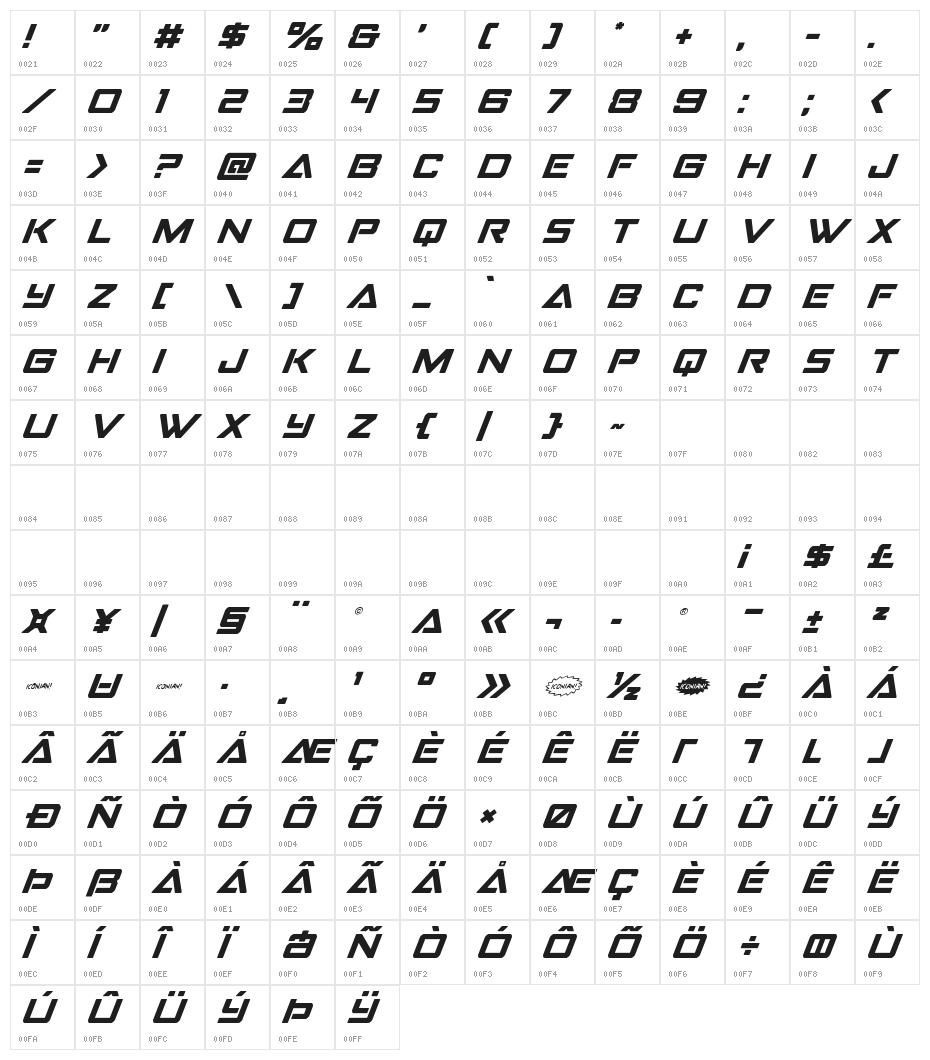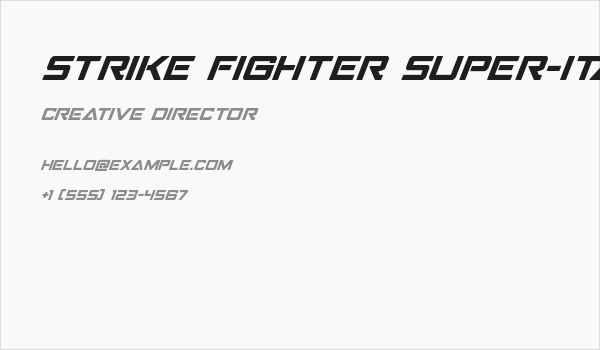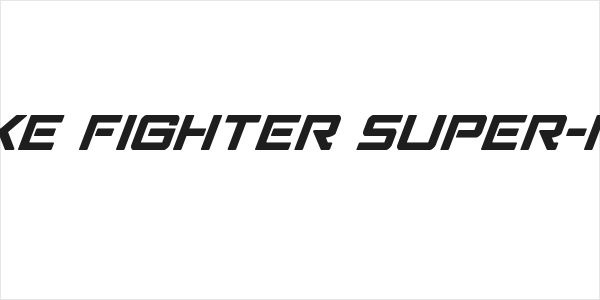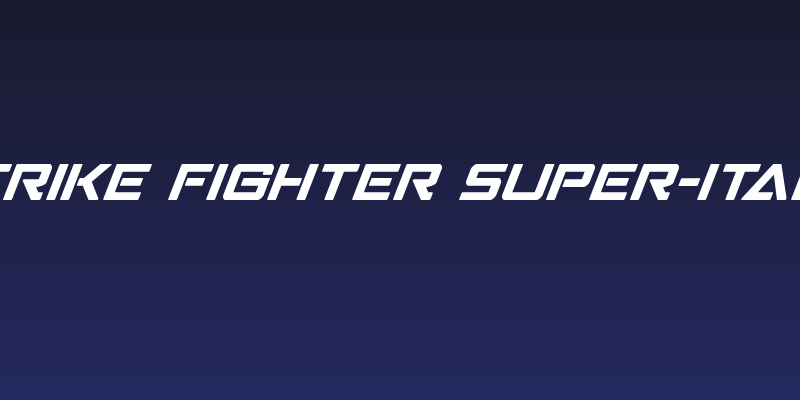
Strike Fighter Super-Italic Font
Strike Fighter Super-Italic Description
This font exhibits a bold and dynamic style, characterized by its italicized and angular letterforms. The design features sharp edges and a futuristic aesthetic, making it ideal for projects that require a modern and aggressive look. The uppercase letters are particularly striking, with a consistent slant that adds a sense of motion and speed. The numbers and special characters maintain this cohesive style, ensuring versatility across various applications. The font's strong presence and unique design make it suitable for attention-grabbing headlines and impactful branding.
| Proposed Projects | Ideal for sports branding, automotive designs, video game titles, and dynamic posters. |